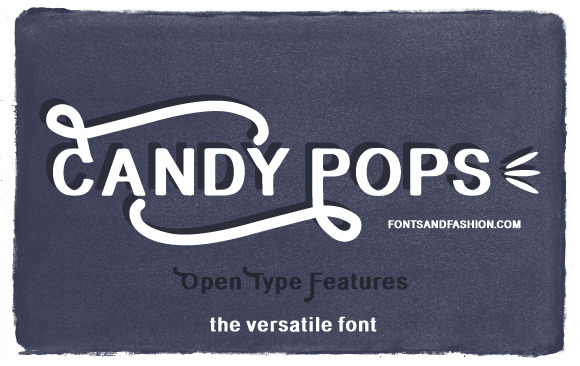
The Sweetest Addition to Your Design Toolbox
Enter the Candy Pops Font, a delightful display font that’s as sweet as its name suggests. Designed to be friendly and approachable, this font is perfect for a wide range of applications, from stickers and headlines to apparel and posters. With its neat and casual vibe, the Candy Pops Font is an invaluable addition to any designer’s toolbox, offering endless possibilities for creative expression.
Candy Pops Font Key Features
- Font Family: Candy Pops, a unique and playful sans-serif font designed for creative and fun applications.
- Font Size: The font comes in multiple sizes, ranging from 8pt to 120pt, catering to various design needs.
- Unique Characteristics: Features bold, cursive, and script styles, making it perfect for creating eye-catching headings, titles, and logos.
Candy Pops Font Review
When I first laid eyes on the Candy Pops Font, I was immediately struck by its whimsical charm ✨. The font’s playful, handwritten feel is perfect for adding a touch of fun and personality to your designs. The font’s bold, colorful aesthetic is reminiscent of classic candy wrappers and old-school carnival signs, making it a great choice for retro-themed projects or anything that needs a dose of whimsy.
- The font’s high level of customization is a major plus ✨. With so many different styles and colors to choose from, you can tailor the font to fit your unique design needs.
- The font is highly versatile and can be used for a wide range of projects, from logos and branding to packaging and advertisements.
However, I do have a few reservations about the Candy Pops Font ⚠️. For one, the font can be a bit overwhelming if used in excess – its bold, playful style can quickly become too much to handle. Additionally, the font’s customizability can also be a double-edged sword – while it’s great to have so many options, it can be overwhelming to navigate and choose the perfect combination.
Overall, I think the Candy Pops Font is a fun and playful addition to any designer’s toolkit. While it may have a few limitations, its unique charm and high level of customization make it a great choice for the right project.
The Candy Pops font is perfect for:
- Designing children’s party invitations and decorations.
- Creating playful and whimsical brand logos.
- Adding a touch of fun to social media graphics and posts.
Remember to experiment with different font sizes, colors, and styles to get the most out of the Candy Pops font.
Crimson Text is a modern, elegant font that’s perfect for creating a sense of sophistication and luxury. It’s ideal for use in body text, headings, and titles where a touch of elegance is desired.
Compared to Candy Pops Font, Crimson Text is more formal and professional, making it a great choice for designers who want to create a sense of authority and trust. While Candy Pops Font is more playful and fun, Crimson Text is more serious and formal.
Q: Can I customize the Candy Pops Font to fit my specific design needs?
Yes, the Candy Pops Font is highly customizable. You can use font editing software such as FontLab or FontForge to modify the font’s characteristics, including its size, color, and style. Additionally, you can also use the font’s built-in features, such as ligatures and swashes, to add more personality to your designs.